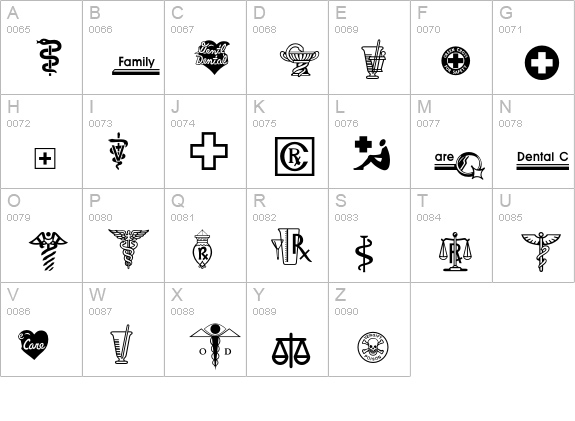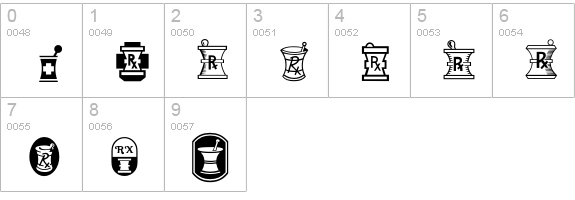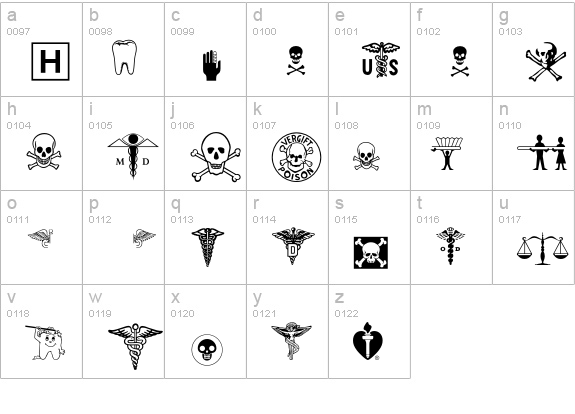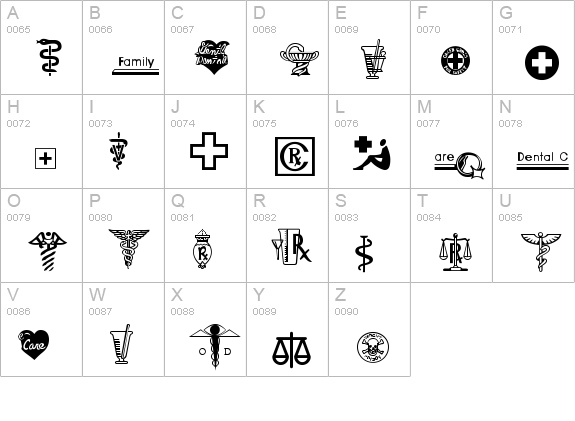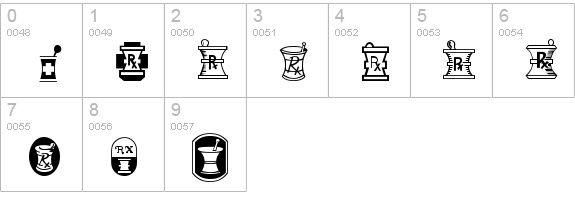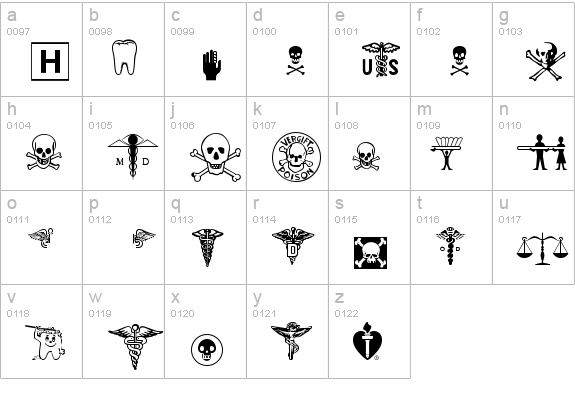
MedicalPharmaceuticalP01 font is a modern and sleek typeface designed specifically for the medical and pharmaceutical industry. With its clean lines and professional appearance, this font is perfect for creating documents, labels, and promotional materials in the healthcare field. The font features a wide range of characters and symbols, making it versatile and suitable for various applications. One of the best things about MedicalPharmaceuticalP01 font is that it is available for free download at FontsMarket.com. This means that you can easily access and use this high-quality font without any cost. Whether you are a medical professional, a designer, or a student, this font is a valuable asset that can enhance your projects and make them stand out. Download MedicalPharmaceuticalP01 font today from FontsMarket.com and take advantage of its sleek design and wide range of characters. Elevate your medical and pharmaceutical-related materials with this free and professional font.